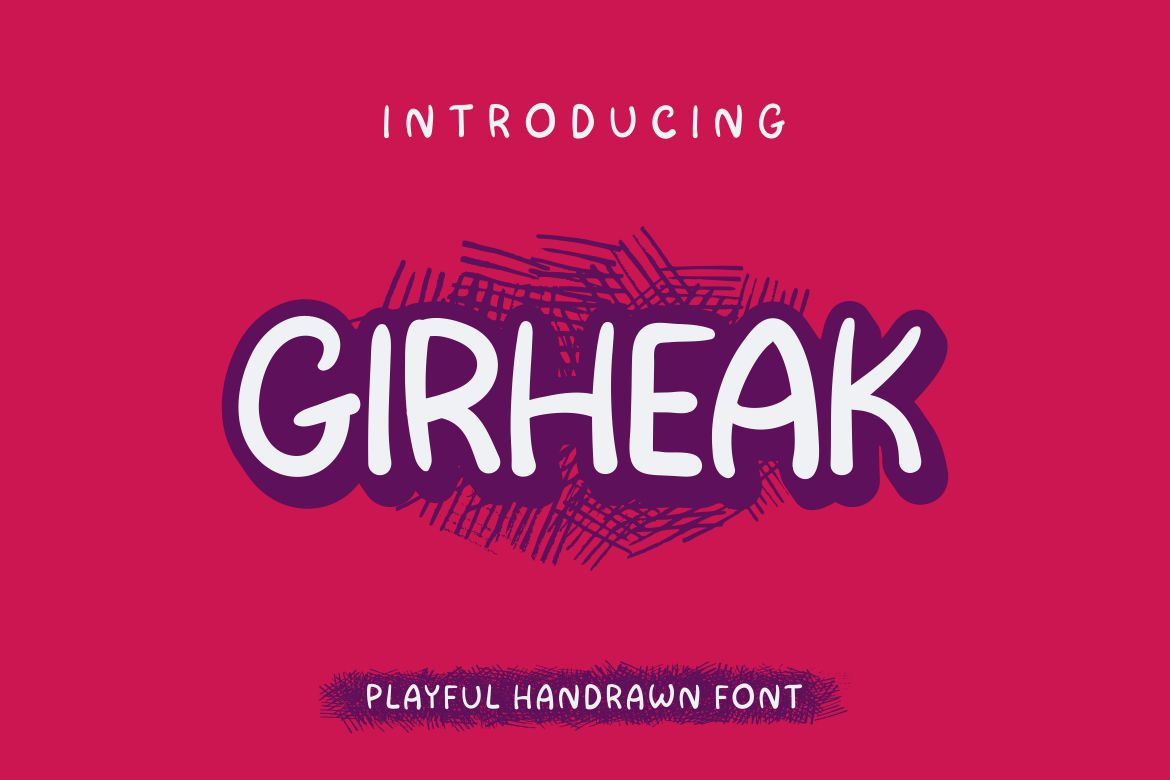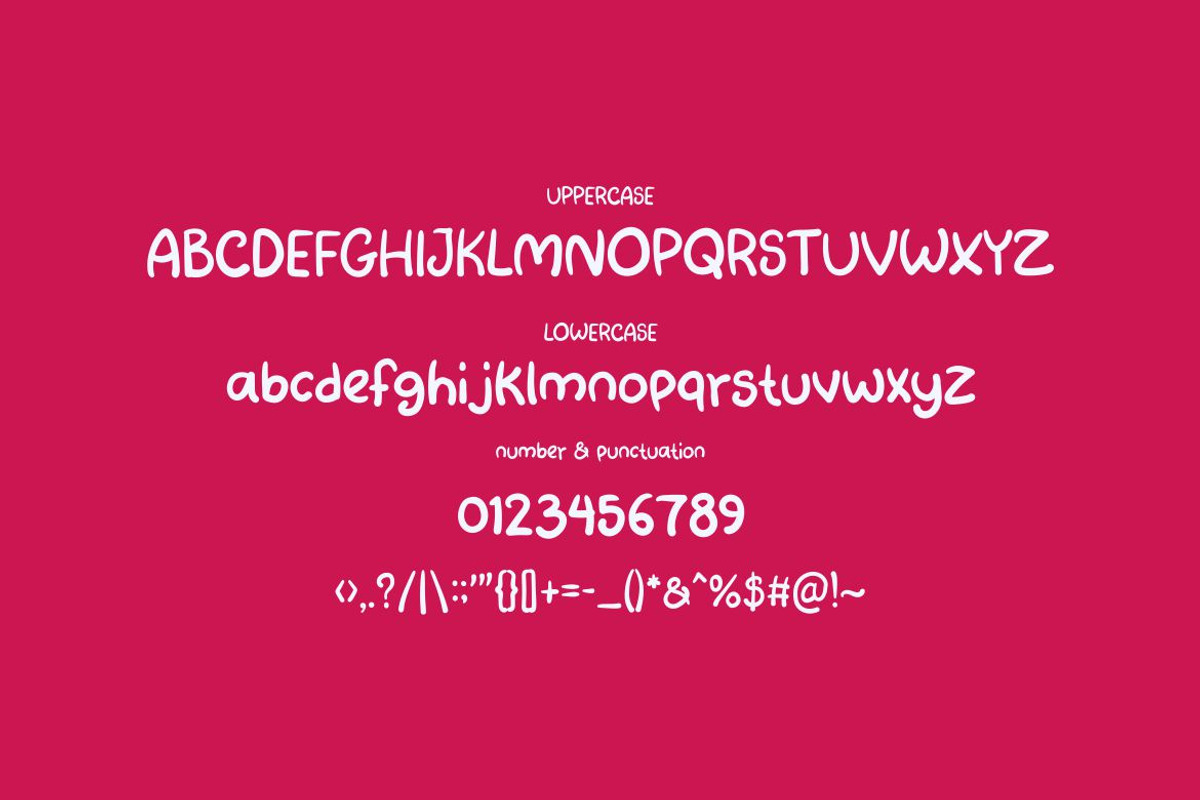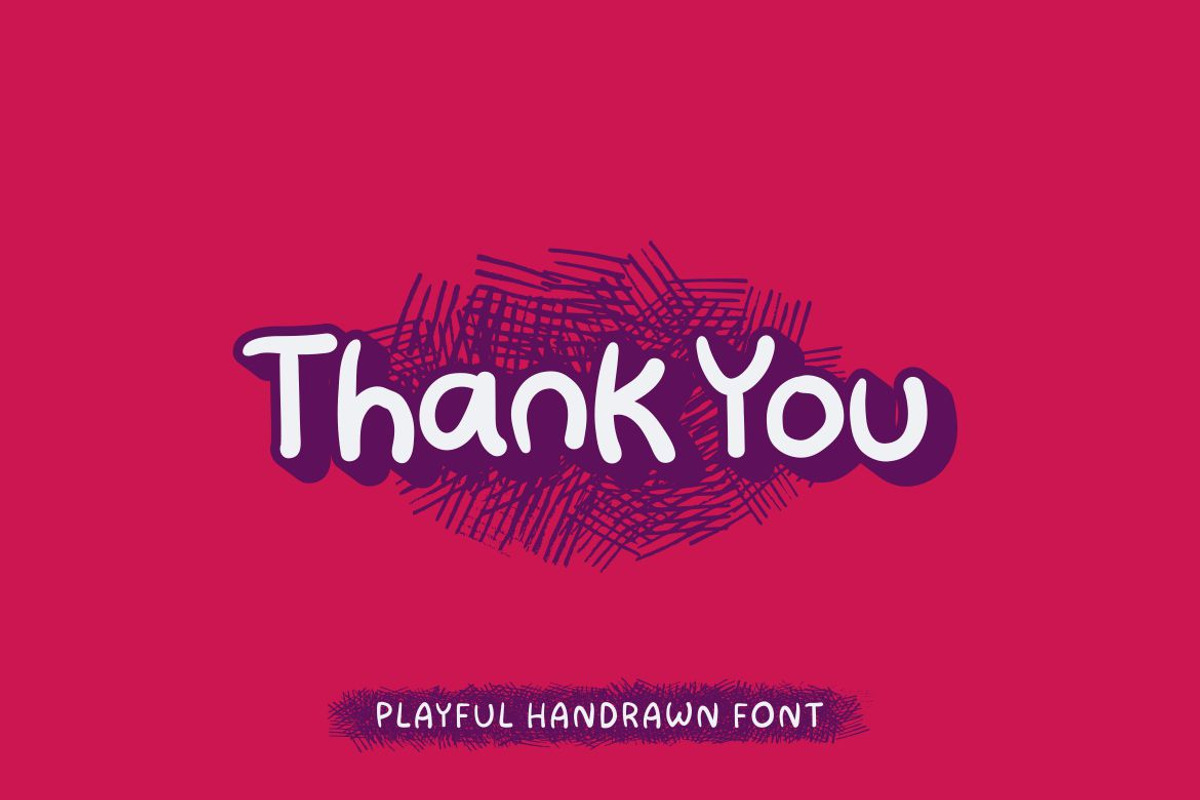
Girheak - Playful Handrawn Font
Introducing Girheak , a cool and elegant Playful Handrawn Font. Elegant font feel. This font gives you a beautiful and modern atmosphere. suitable for posters, book covers, cards, merchandise, etc.